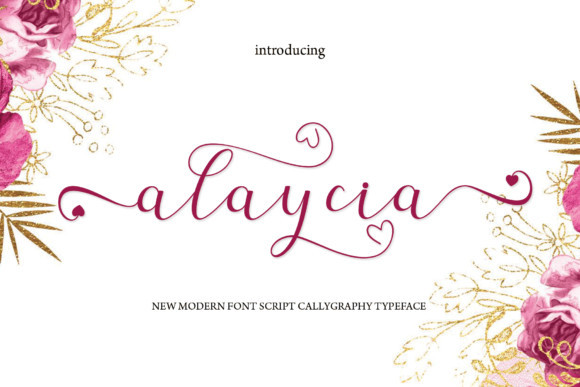
Alaycia Font
Alaycia is a beautiful and authentic script font that features gorgeous swashes. This magical calligraphy font will add a fancy feel to any design project!